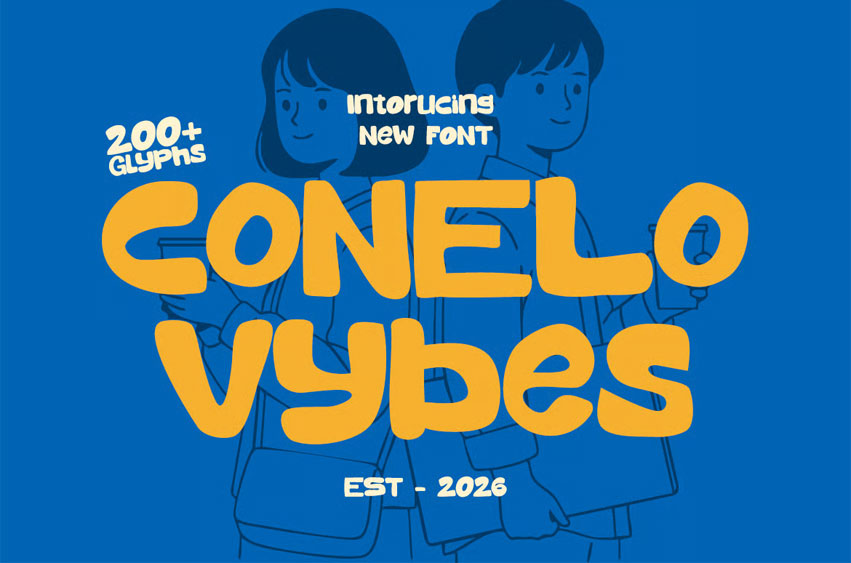
Conelo Vybes Font
Conelo Vybes Font is a captivating display typeface characterized by its extremely bold and rounded letterforms, exuding a playful and friendly aesthetic.